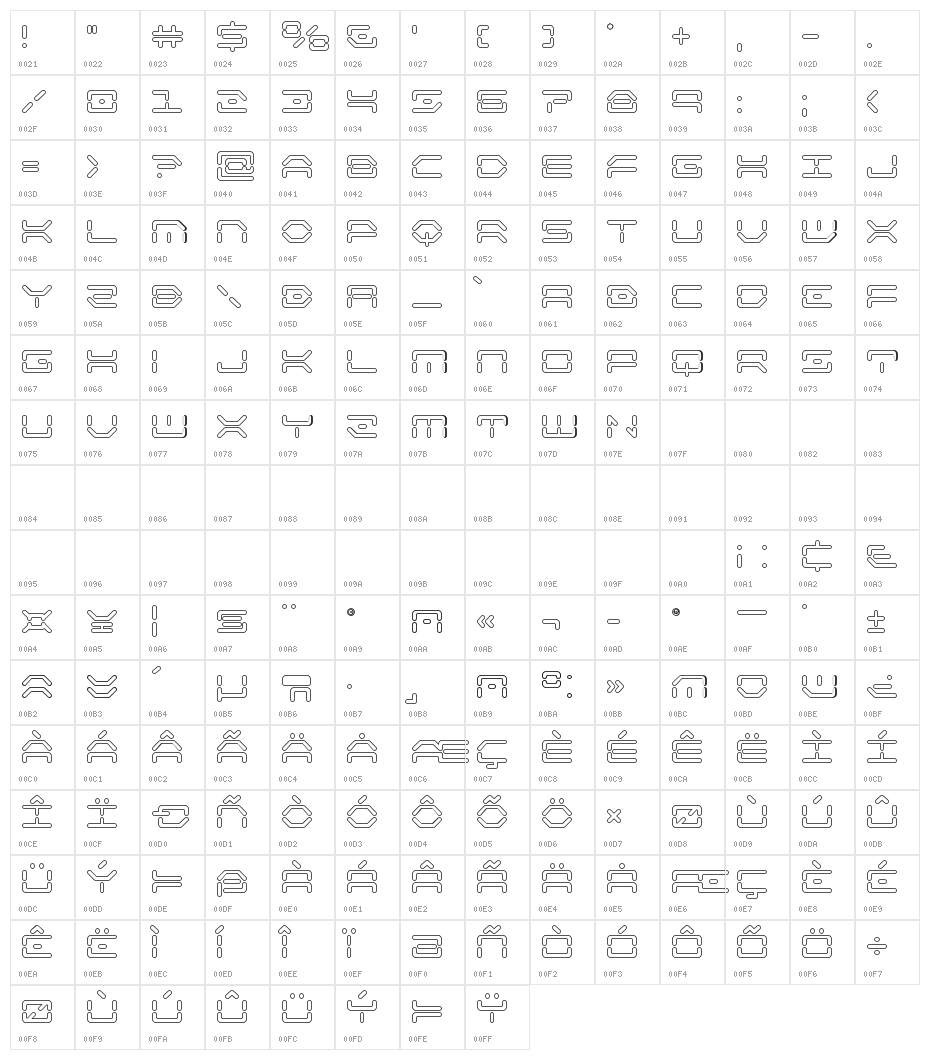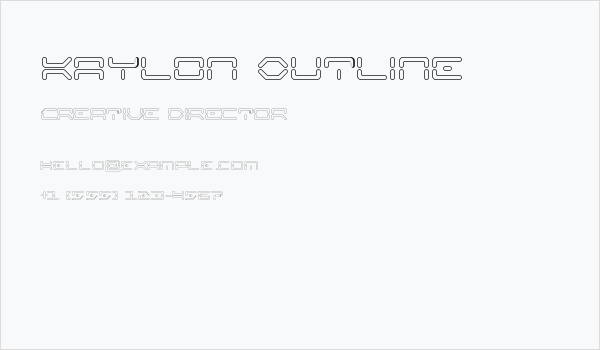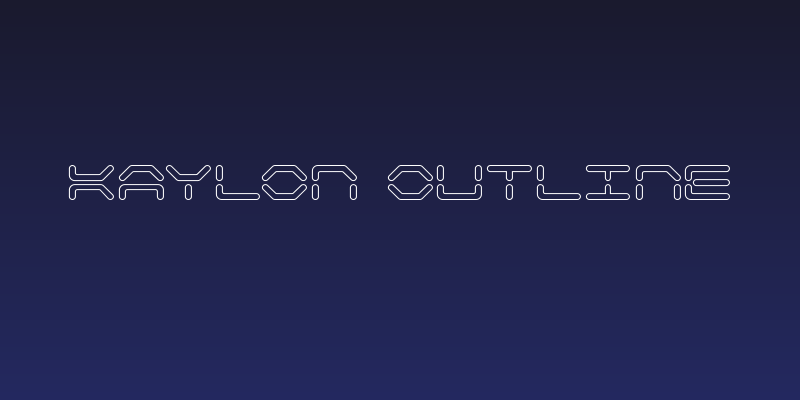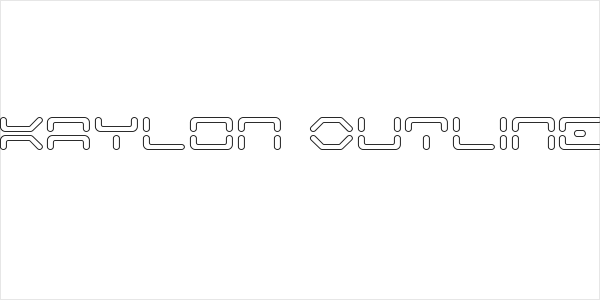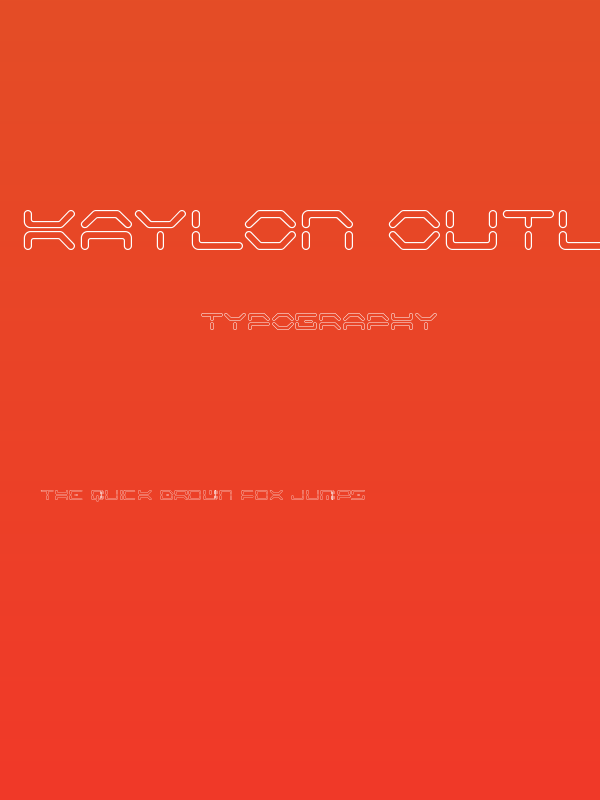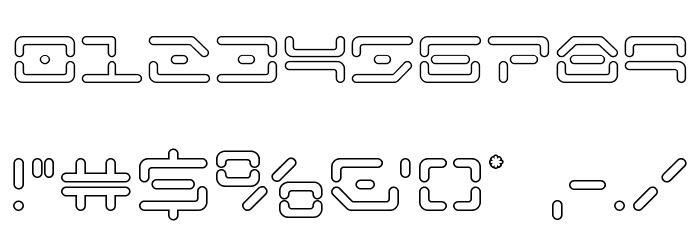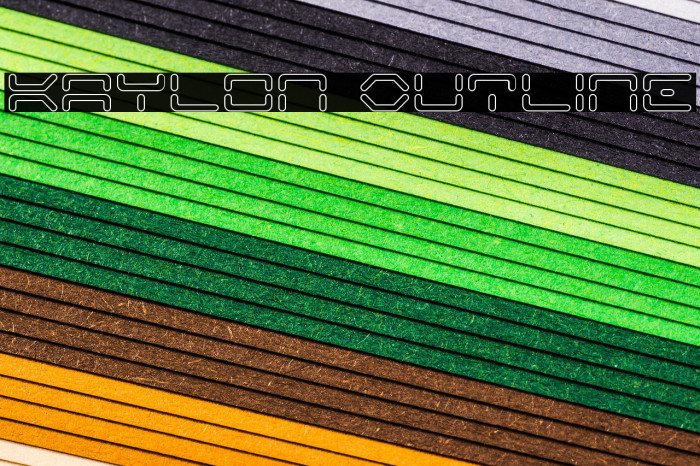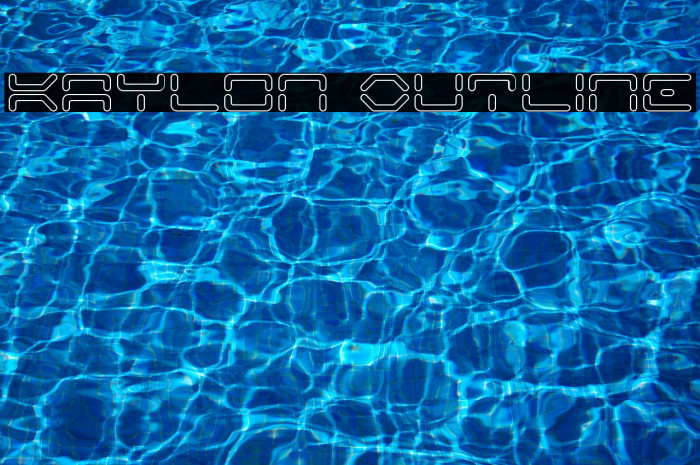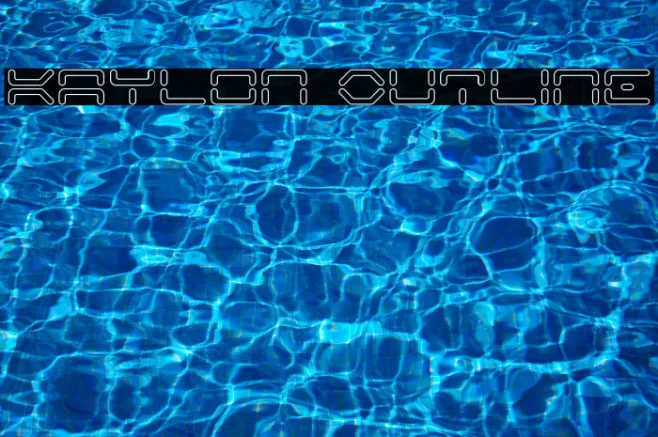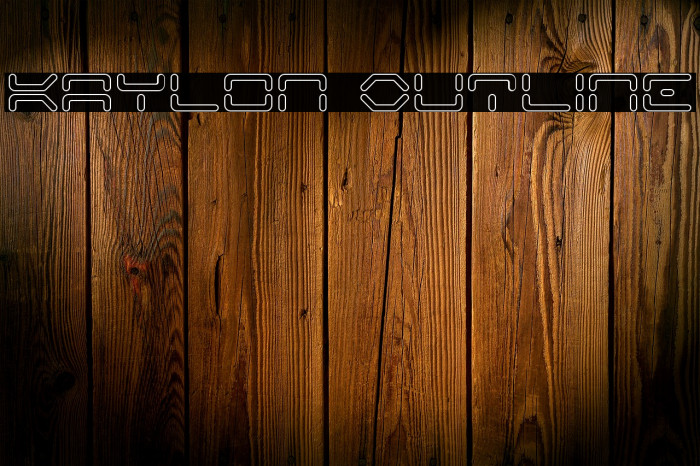
Kaylon Outline Font
Kaylon Outline Description
This font features a futuristic and geometric design with an outline style that gives it a unique and modern appearance. Each character is crafted with precision, showcasing a blend of straight lines and rounded edges, creating a harmonious balance between rigidity and fluidity. The uppercase and lowercase letters maintain a consistent style, with a uniform stroke width that enhances readability. Numbers and special characters are designed to match the overall aesthetic, making them suitable for a variety of applications. The font's outline nature adds a layer of sophistication, making it ideal for projects that require a contemporary and sleek look.
| Proposed Projects | Ideal for technology branding, sci-fi themed designs, modern posters, and digital interfaces. |